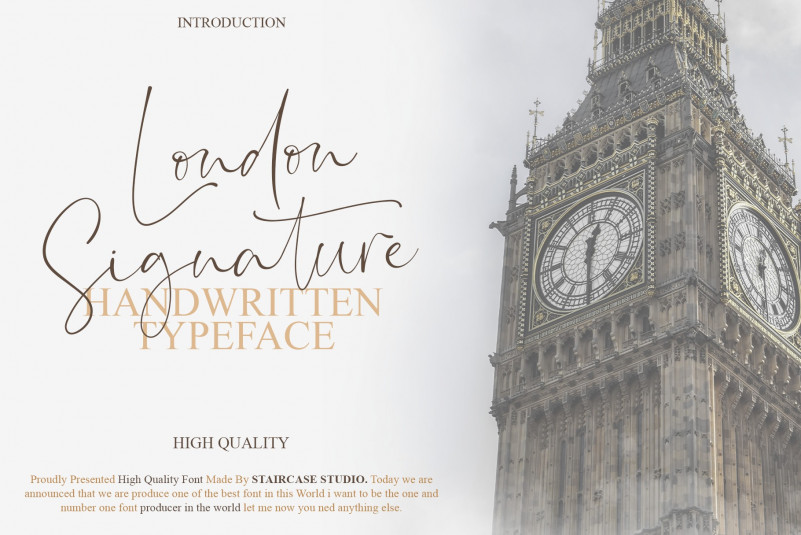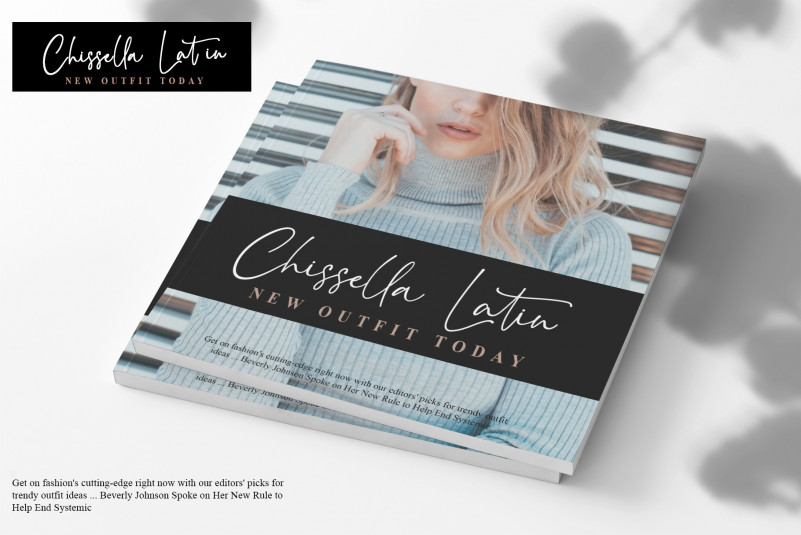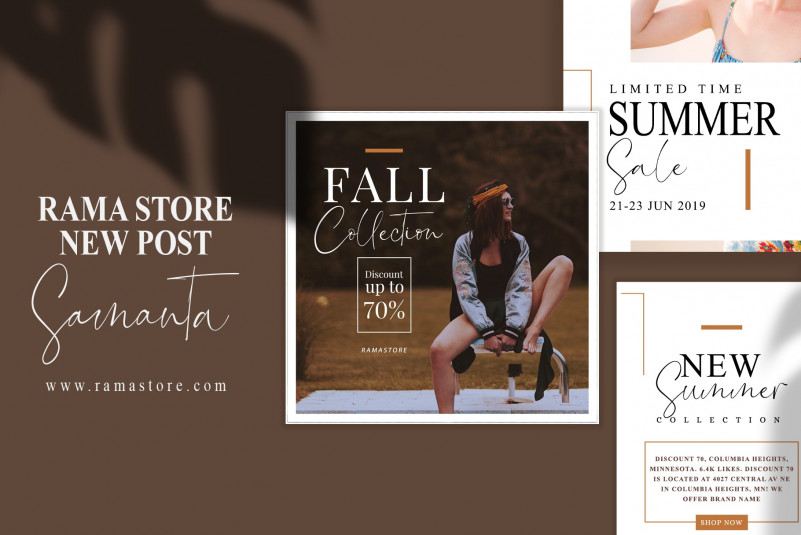
London Signature Handwritten Font
London Signature Handwritten Typeface. A collection of letters and numbers suitable your projects also great for Logotype, Branding Design, Logo Design, Digital Lettering Arts, T-Shirt/Apparel, Poster, Magazine, Signs, Advertising Design, and any design needs.